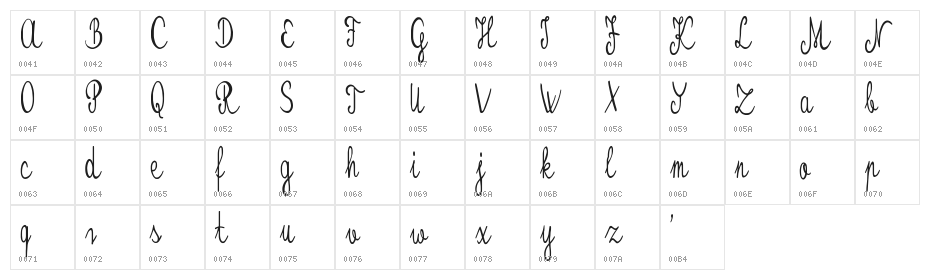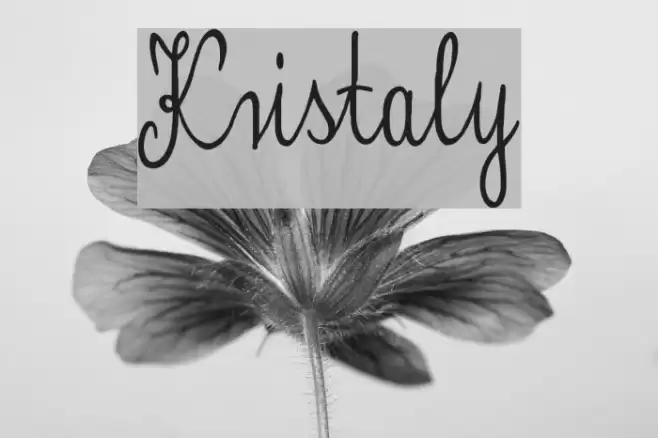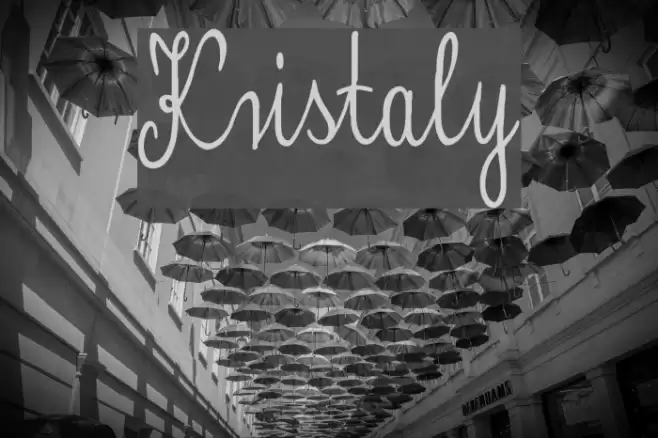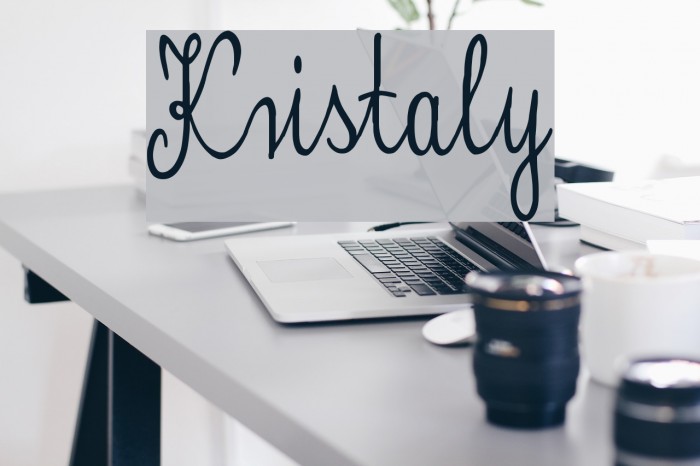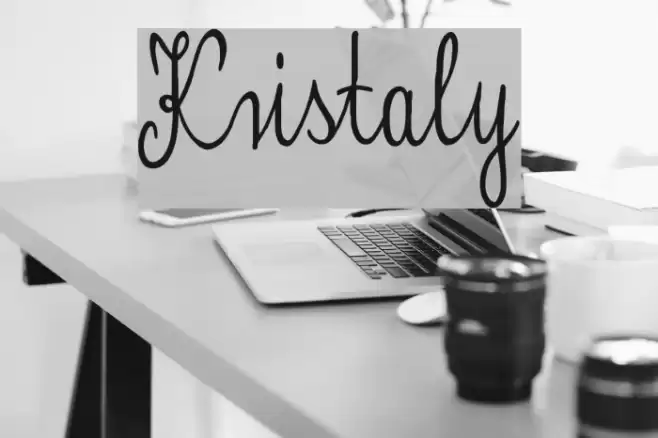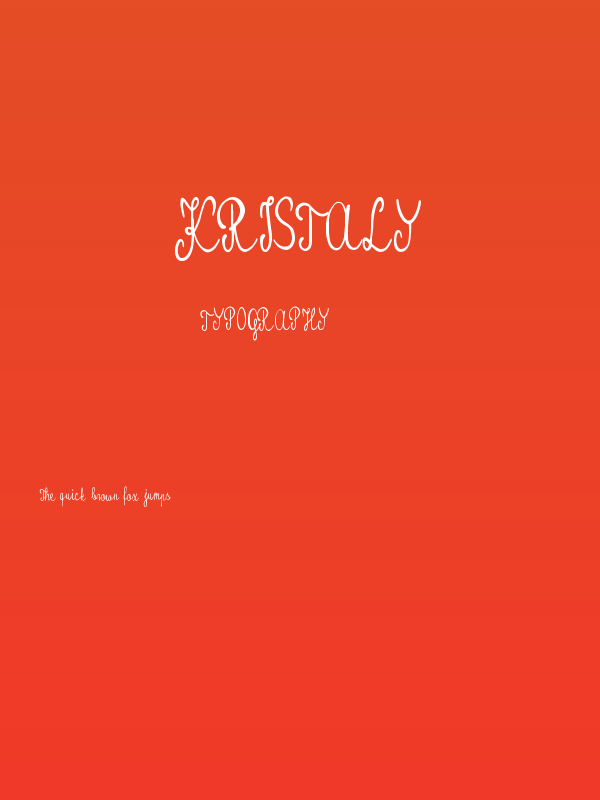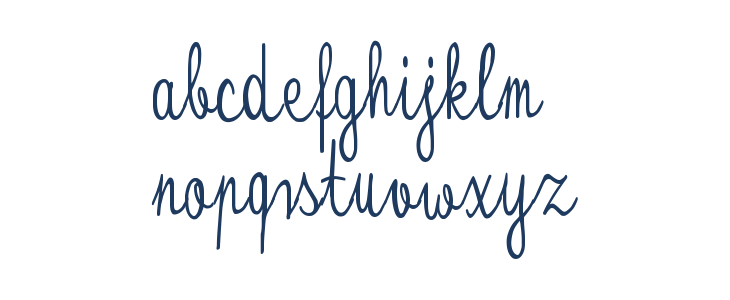
Kristaly Font
Kristaly Description
This font features a playful and elegant script style, characterized by its flowing, connected letters that mimic cursive handwriting. The uppercase letters are ornate with loops and flourishes, while the lowercase letters maintain a consistent, smooth flow. The strokes are moderately thick, providing a balanced contrast that enhances readability while maintaining a decorative appeal. The font exudes a sense of whimsy and charm, making it suitable for creative and artistic projects. Its unique style is perfect for adding a personal touch to designs.
| Proposed Projects | Ideal for wedding invitations, greeting cards, branding, and artistic projects. |